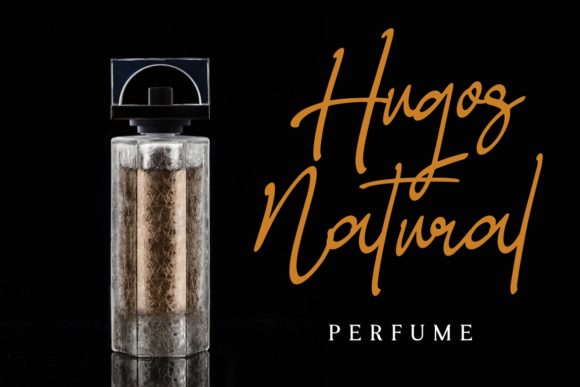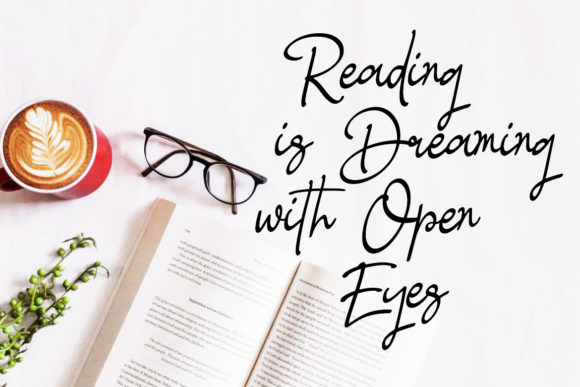
Glastia Monoline Font
db-ku.com - Script & Handwritten -- Glastia Monoline Font is an elegant handwritten signature font. It’s based on organic handwriting, which makes it the ideal font for adding an authentic twist to your next design idea.